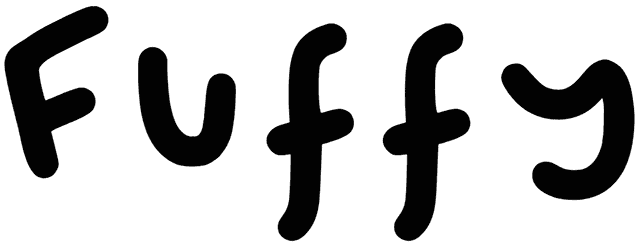
Fuffy Font
Suppose you need a beautiful script font, then Fuffy may be an excellent choice. This baby font has a playful design and grabs your attention from the first second. The Fuffy font’s letters are bold and not strict, creating a fun style for this font.
Moreover, you can use it in several situations, such as posters, videos, and cartoons. The Fuffy font has a friendly vibe that makes it memorable to the viewers, so download it and enjoy its pleasant design.